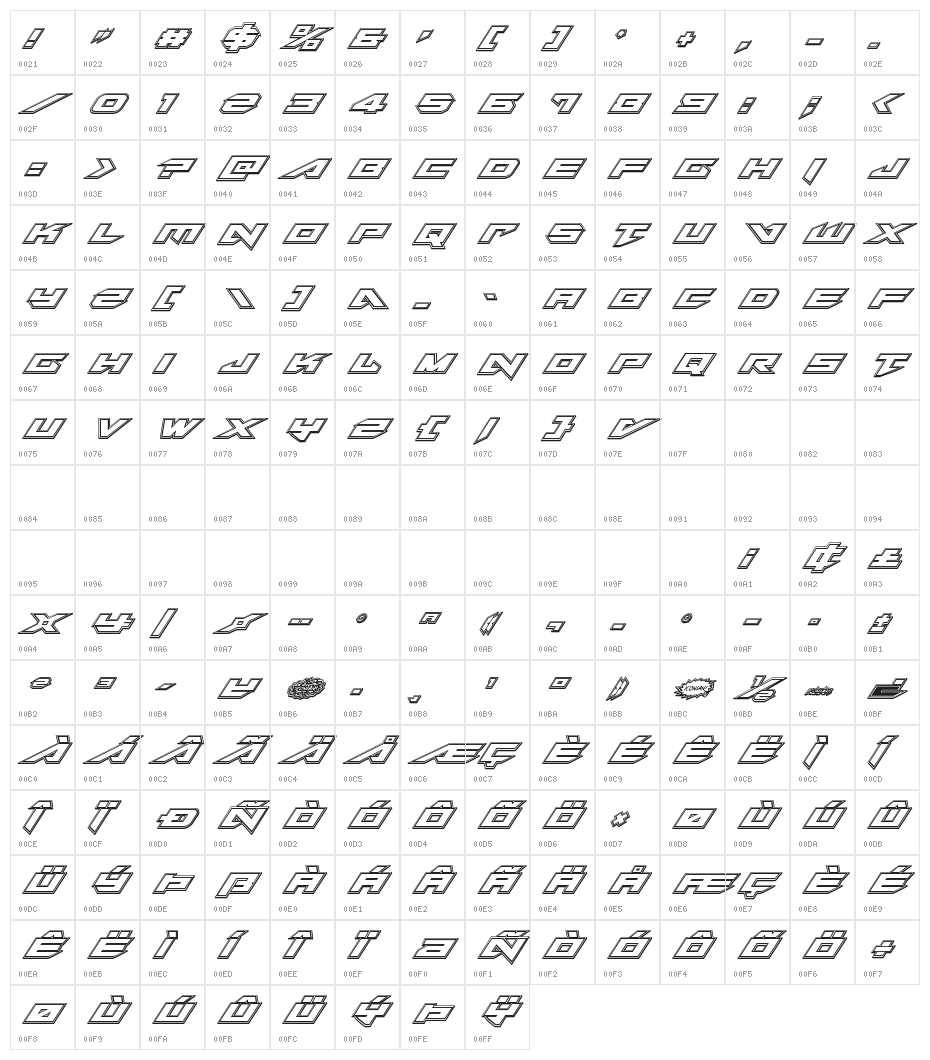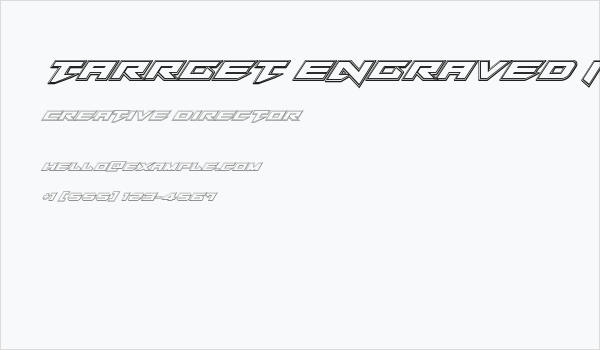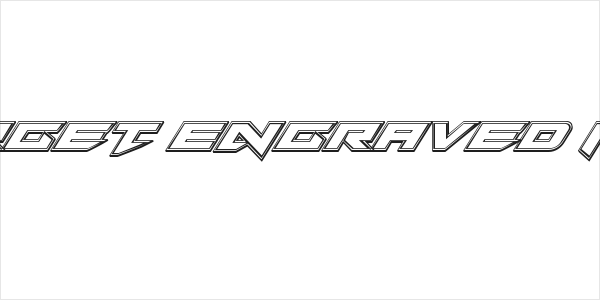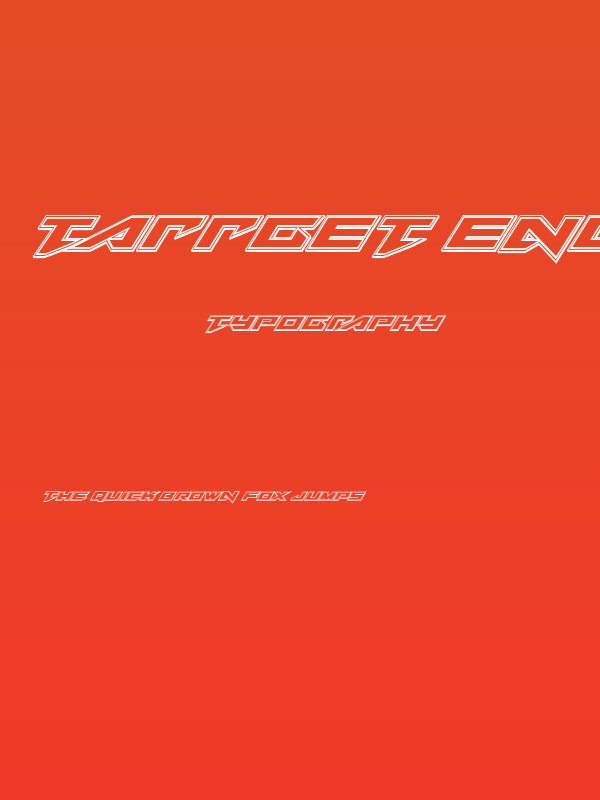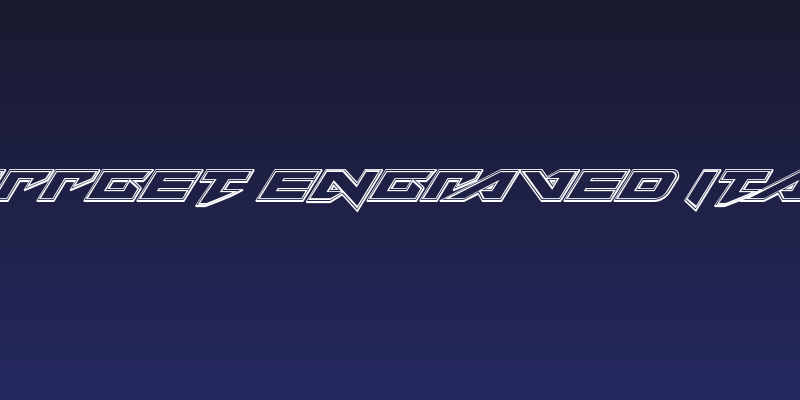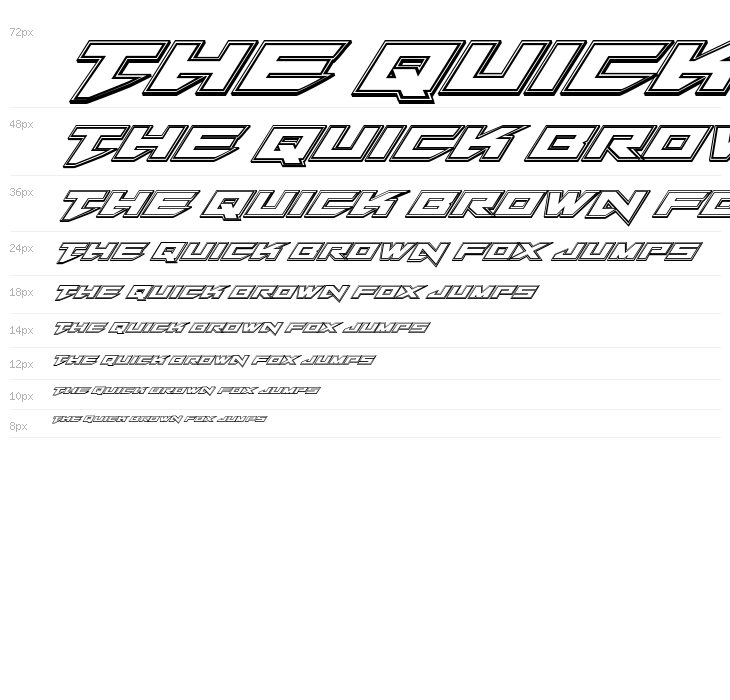
Tarrget Engraved Italic Font
Tarrget Engraved Italic Description
This font features a bold, angular design with a distinct engraved effect, giving it a three-dimensional appearance. The italicized style adds a dynamic and forward-moving feel, making it stand out. Each character is outlined with a double line, enhancing the engraved look. The uppercase letters are sharp and geometric, while the numbers and special characters maintain the same bold and structured aesthetic. This font is ideal for projects that require a futuristic or tech-inspired theme.
| Overall Style | Futuristic, Decorative |
| Proposed Projects | Ideal for technology branding, sci-fi movie posters, video game titles, and futuristic event invitations. |